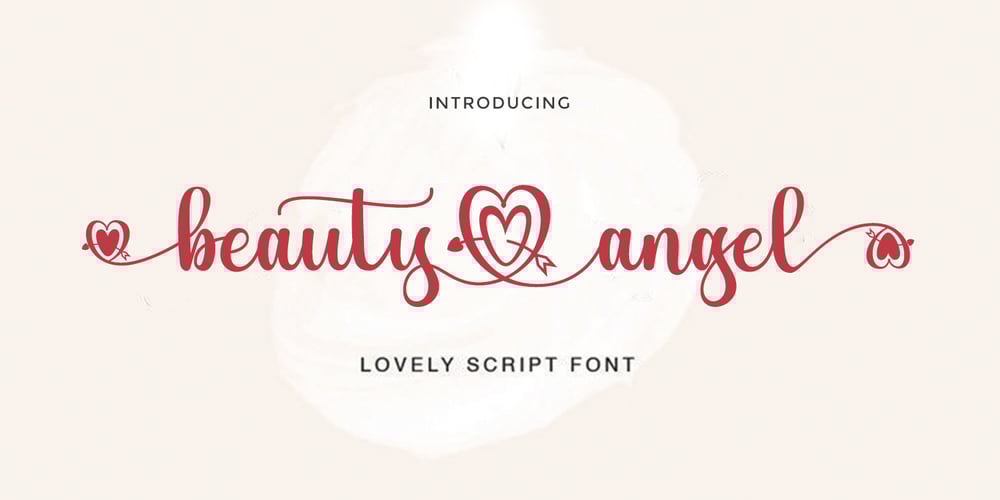
Beauty angel Script Font Family was designed by Rizki Andika and published by Letterfreshstudio. Beauty angel Script contains 2 styles and family package options. Beauty Angel ! A new fresh an modern hand lettered font with decorative characters and a dancing baseline. So beautiful on invitation like handicraft, greeting cards, branding materials, business cards, quotes, posters, and more design concepts.Features : Ligatures Stylistic sets Basic Latin A-Z and a-z Numbers International Symbols included Punctuation Ligature